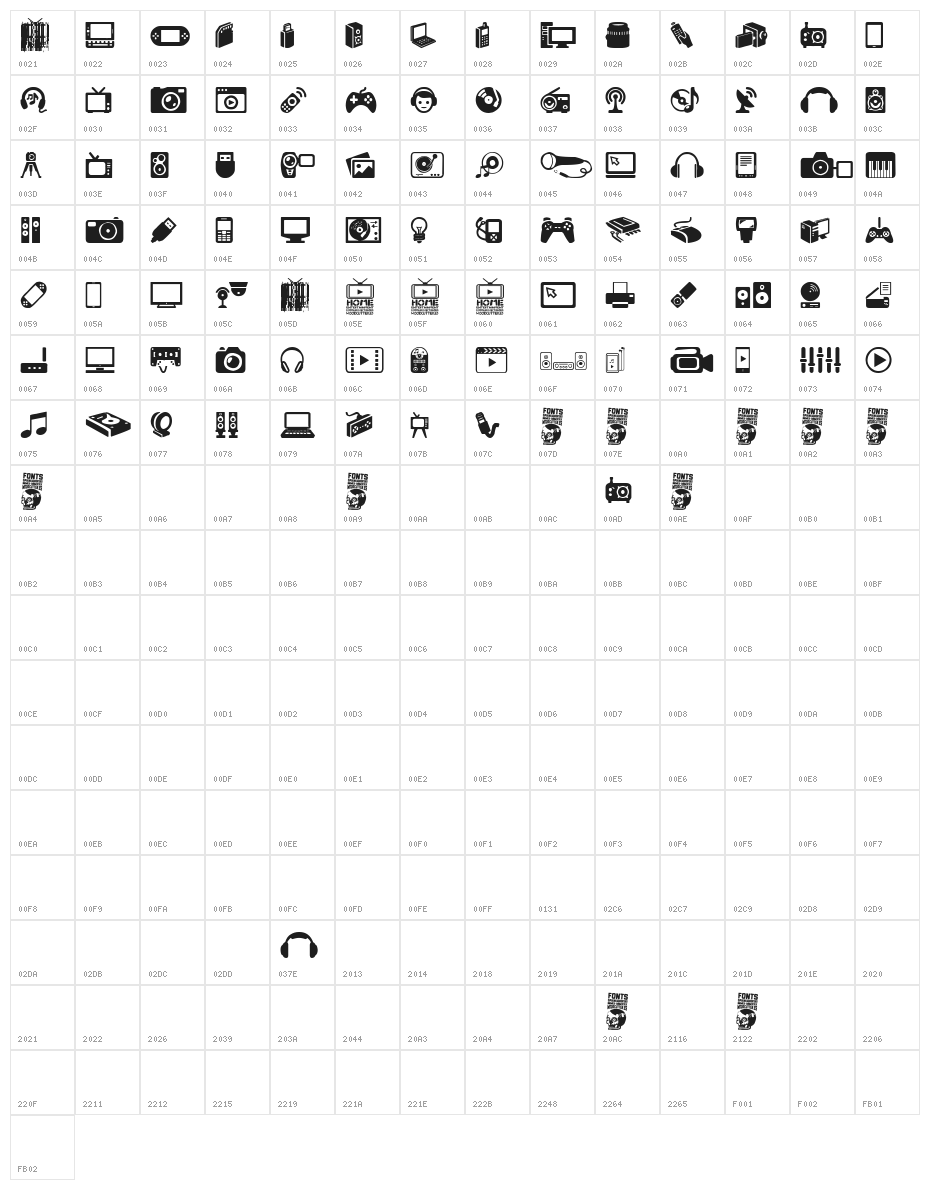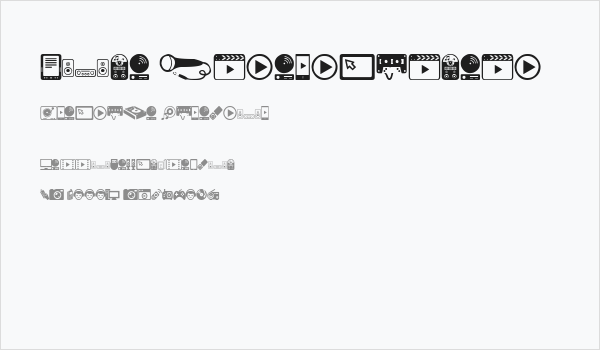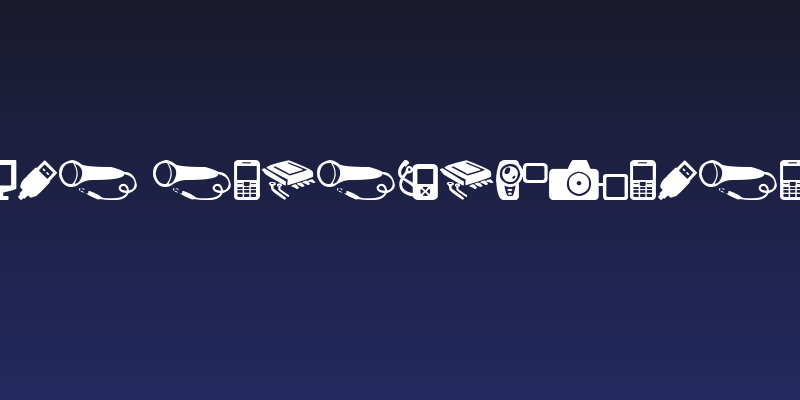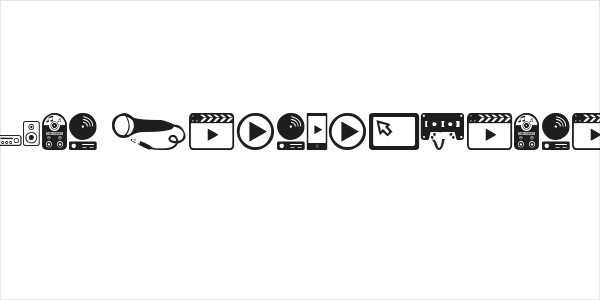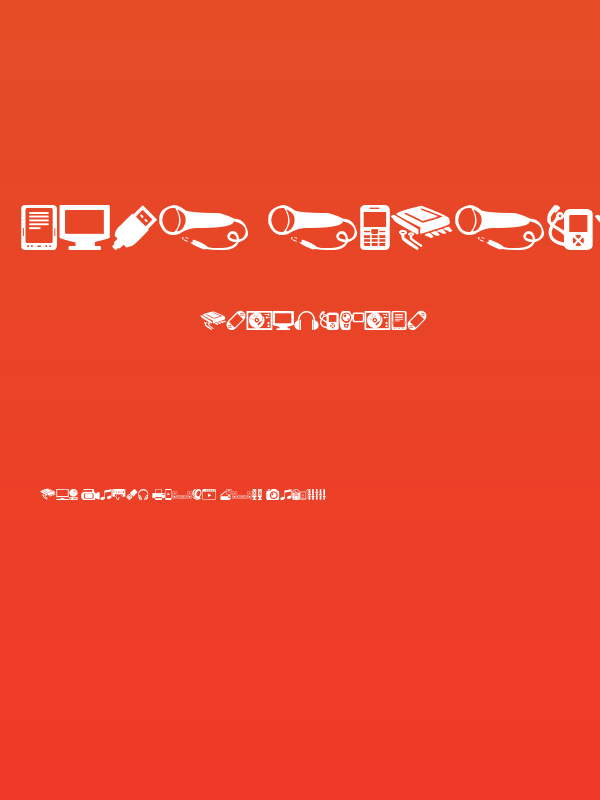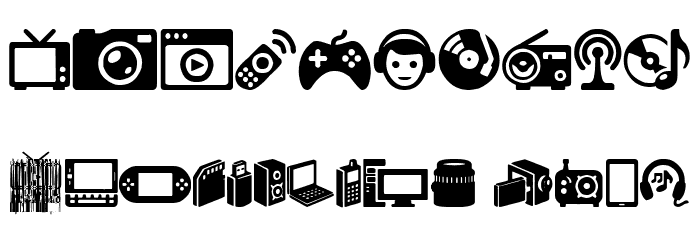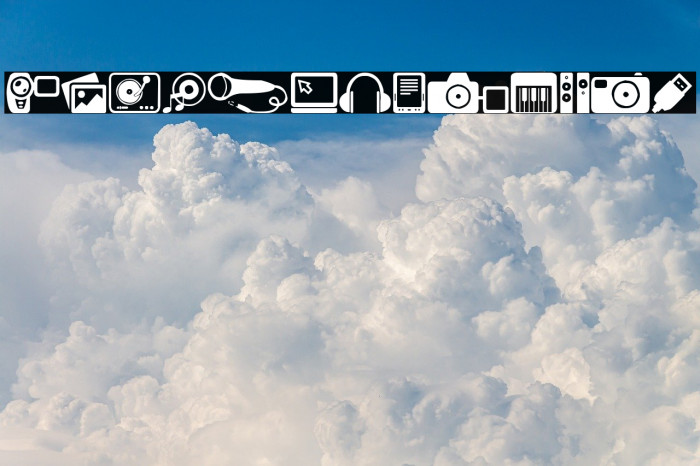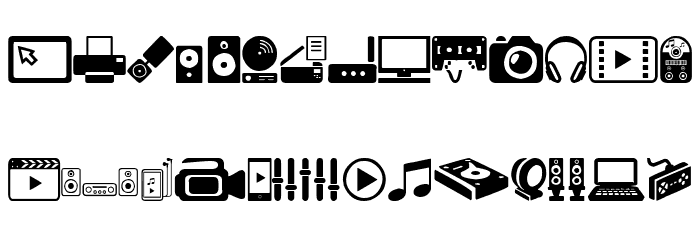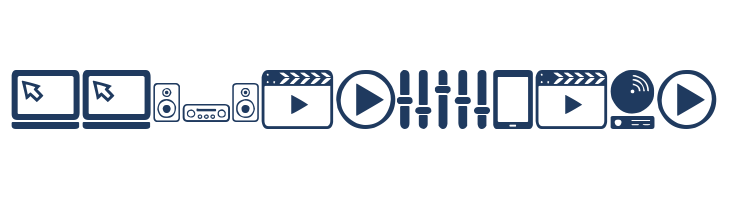
Home Entertainment Font
Home Entertainment Description
A pictogram-style icon set featuring various home entertainment and technology devices, including TVs, cameras, headphones, game controllers, speakers, and media players. The icons are bold, solid, and highly simplified for easy recognition.
| Overall Style | Modern, Decorative |
| Use Case | Icons, UI elements, infographics, signage |
| Proposed Projects | App interfaces, infographics, instruction manuals, tech websites, educational materials. |